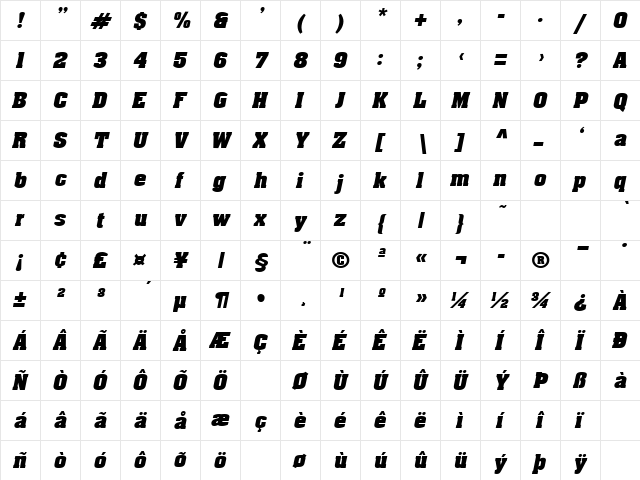
Apex Oblique
Design Context for Apex Typeface
Apex offers clean, dependable letterforms without strong stylistic allegiance, making it a practical choice for designers who need flexibility. The dynamic lean of this cut emphasises speed and emphasis in any layout.
Pro Tip: Try Apex for annotation and caption copy alongside an upright companion — the contrast in angle creates a dynamic but ordered typographic system.